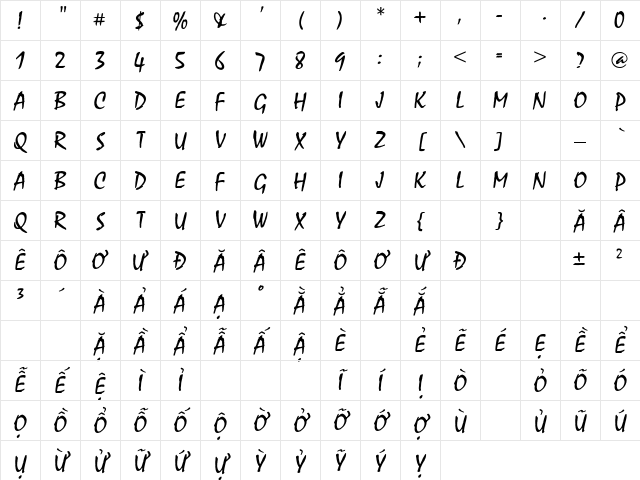
.VnMysticalH Regular
Design Context for .VnMysticalH
.VnMysticalH is a composed and adaptable typeface that performs quietly and consistently across a wide range of design contexts.
Pro Tip: Use .VnMysticalH in both headline and body roles to test its range before committing to a single application.